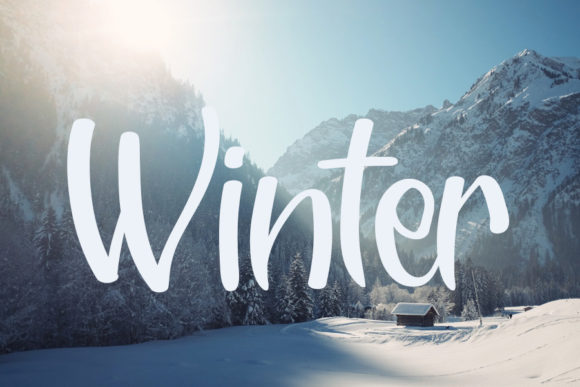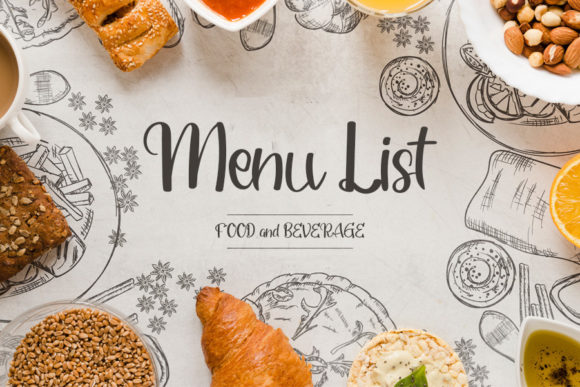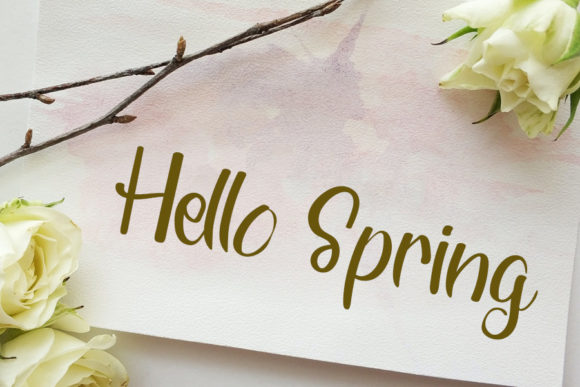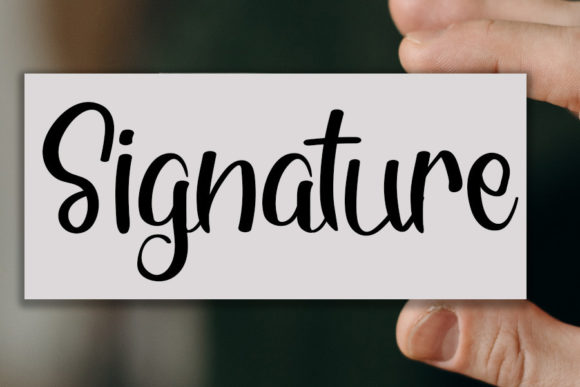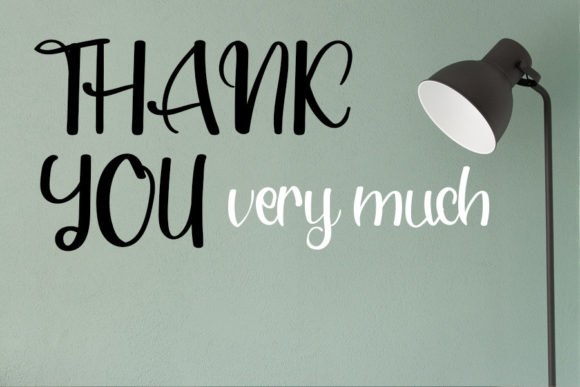
When Words Take Flight: The Magic of Angel Wings Font
Have you ever been in a creative zone where words just flow effortlessly onto the page, like a gentle stream of thoughts and ideas? It’s that moment when you feel truly connected to your art, and anything seems possible. For designers, this feeling is a rare gem, but with the right tools, it can be achieved every time. One such tool is the enchanting Angel Wings Font, a chic and flowing script font that adds a touch of whimsy and elegance to any design.
The Angel Wings Font is a masterful blend of style and functionality, making it a valuable asset for designers seeking to elevate their work. Its sweet and full-of-life style is perfect for brightening up your designs, whether it’s a wedding invitation, a birthday card, or a social media post. By incorporating this font into your designs, you can add a sense of sophistication and playfulness that will leave a lasting impression on your audience.
Angel Wings Font Key Features
- Font Style: Cursive, Script, Whimsical
- Unique Characteristics: Features intricate, hand-drawn designs with delicate details and subtle flourishes, creating a romantic and elegant feel
Angel Wings Font Review
Overall, I think the Angel Wings Font is a beautiful, elegant script font. ✨ The flowing lines and subtle curves create a sense of movement and whimsy, making it perfect for any design that needs a touch of magic. ✨ The font is highly customizable, allowing designers to adjust the weight, style, and spacing to fit their specific needs. ✨ This level of control is invaluable for achieving the perfect look.
- ✨ Beautiful, flowing lines and curves
- ✨ Highly customizable
- ✨ Elegant and whimsical feel
- ⚠️ Limited font sizes: While the font is highly customizable, it’s not ideal for large-scale typography. It’s best suited for smaller text sizes and headlines.
- ⚠️ May not be suitable for digital use: The font’s delicate lines and curves may not display well on lower-resolution screens or devices.
- ⚠️ May require additional styling: Depending on the design, you may need to add additional styling or formatting to achieve the desired look.
Overall, I think the Angel Wings Font is a great choice for designers looking to add a touch of elegance and whimsy to their projects. With its beautiful design and high level of customization, it’s sure to be a popular choice among designers.
For a whimsical touch, pair the Angel Wings font with other decorative fonts and add illustrations or graphics to create a unique design.
For a more intricate design, use the Angel Wings font in combination with other fonts and graphics to create a stunning visual effect.
For a more elegant look, pair the Angel Wings font with other serif fonts and use it for headings or titles.
The Angel Wings font is ideal for:
- Baby shower invitations
- Wedding invitations
- Party decorations
Remember to experiment with different font sizes, colors, and styles to get the most out of the Angel Wings font.
Alternatives to “Angel Wings Font” for Designers
Great Vibes is a modern, elegant script font that is perfect for creating a sense of luxury and sophistication. It features a flowing, cursive design that is ideal for use in branding, invitations, and other high-end applications. When to use: Luxury branding, weddings, and special occasions. Comparison to Angel Wings Font: While both fonts have a similar elegant feel, Great Vibes is more modern and sleek, making it a better choice for contemporary designs.
Carolyna Pro is a beautiful, high-end script font that features a classic, sophisticated design. It is perfect for use in branding, packaging, and other applications where a touch of elegance is needed. When to use: High-end branding, packaging, and luxury products. Comparison to Angel Wings Font: Carolyna Pro has a more classic feel than Angel Wings Font, making it a better choice for traditional or vintage-inspired designs.